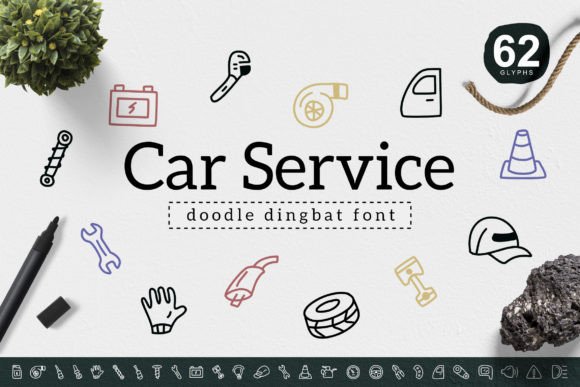
The Ultimate Car Service Font Guide: Elevate Your Designs with this Fun and Useful Dingbats Font
I’ll never forget the time I was working on a project for a client who needed a custom sticker design for their car service business. I had spent hours browsing through font libraries, but nothing seemed quite right. That was until I stumbled upon the Car Service font – a game-changer for any designer, crafter, or creative hobbyist looking to add a touch of personality to their work.
Car Service is a fun and useful dingbats font that’s perfect for a wide variety of projects. From stickers and posters to t-shirts, cards, and apparel graphics, this font is sure to become a favorite in your design arsenal.
So, what makes Car Service font so special? Here are a few things that I love:
- ✨ Unique and quirky design: The Car Service font has a one-of-a-kind personality that’s sure to make your designs stand out.
- ✅ Highly versatile: Whether you’re working on a digital project or a print design, this font adapts seamlessly.
- 💡 Inspirational possibilities: The font’s dingbats style opens up a world of creative possibilities, from illustrations to icons.
- 🤔 Limited character set: As a dingbats font, Car Service has a limited character set, which may not be ideal for body text or long-form content.
- ⚠️ Glyph compatibility: Some glyphs may not work seamlessly with all software or platforms, so be sure to test compatibility before finalizing your design.
The Story Behind Car Service Font
The Car Service font was designed with the goal of creating a fun and useful dingbats font that would inspire creativity and add a touch of personality to designs. The designer, inspired by the world of car services and roadside assistance, aimed to create a font that would be both functional and visually appealing.
| What is the Car Service font best used for? | The Car Service font is perfect for a wide variety of projects, including stickers, posters, t-shirts, cards, and apparel graphics. |